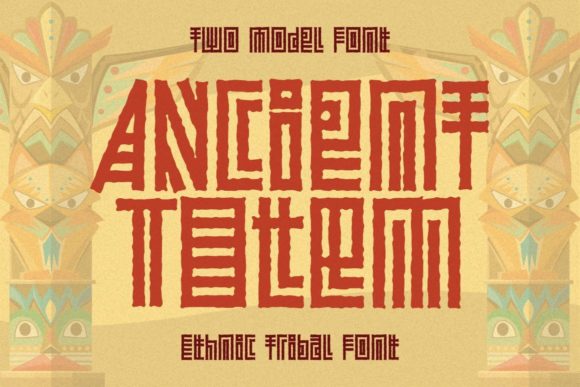
The Quest for the Perfect Font: Discovering Ancient Totem
I still remember the frustration of working on a project with a tight deadline, only to realize that I couldn’t find the right font to match the tribal theme my client had requested. I scoured the internet, tried countless font combinations, and even considered designing my own from scratch. But then, I stumbled upon Ancient Totem – an ethnic tribal font that instantly resonated with my project’s needs. In this article, I’ll share my experience with Ancient Totem, its features, and how to make the most of this versatile font.
First Impressions: What I Love About Ancient Totem
Ancient Totem is more than just a font – it’s a design statement. Here are the things that I love about it:
- ✨ Unique Tribal Style: Ancient Totem is inspired by traditional tribal and ethnic styles, making it perfect for projects that require an authentic, cultural feel.
- ✅ Two Styles: The font comes with two distinct styles, allowing you to experiment with different looks and moods.
- 🔥 High-Impact Display Font: Ancient Totem is designed to make a statement, making it ideal for headlines, titles, and attention-grabbing text.
- 🎨 Versatile: From logos and branding to posters, t-shirts, and packaging, Ancient Totem can be used in a wide range of creative projects.
While Ancient Totem is an excellent font, there are a few things to keep in mind:
- 🤔 Legibility at Small Sizes: As with many display fonts, Ancient Totem may not be the best choice for body text or small font sizes.
- ⚠️ Limited Glyph Set: While the font has a range of characters and symbols, it may not have every special character or glyph you need.
The Story Behind Ancient Totem
According to the font’s creators, Ancient Totem was inspired by the rich cultural heritage of tribal communities around the world. The font’s unique design combines traditional tribal elements with modern typography, making it perfect for projects that require an authentic, cultural feel.
| What type of projects is Ancient Totem best suited for? | Ancient Totem is perfect for projects with tribal and ethnic themes, such as logos, branding, posters, t-shirts, and packaging. |